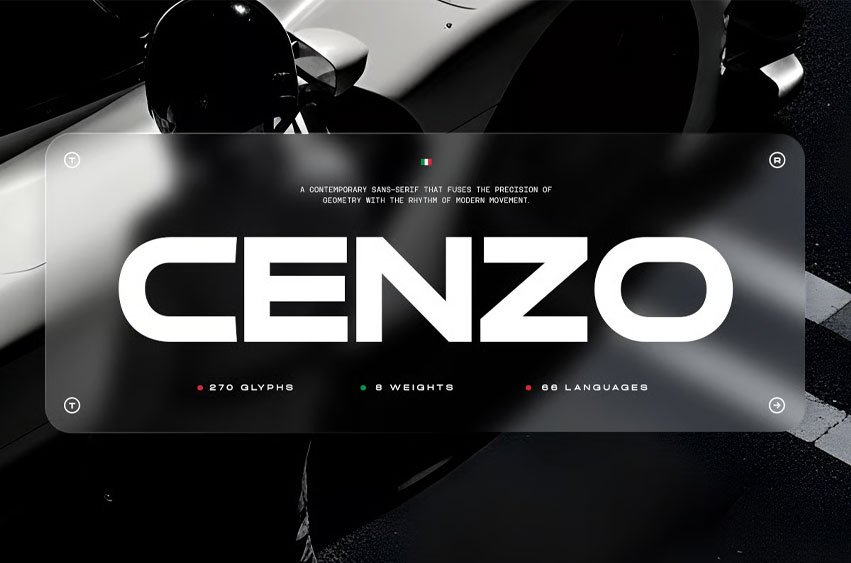
Cenzo Futuristic Font When I began working on TBJ Cenzo, I was inspired by the bold and clean geometry found in iconic modernist typefaces. Those forms conveyed a sense of strength, clarity, and futuristic appeal — but I wanted to reinterpret them in a way that feels sharper, more dynamic, and perfectly suited for today’s design landscape.
Subtle cuts and balanced proportions give TBJ Cenzo its distinctive, forward-looking personality while maintaining strong readability.
The result is TBJ Cenzo, a modern and futuristic sans-serif typeface that blends minimalism with bold visual impact. Designed for branding, display titles, interfaces, and editorial projects, it brings a sleek, contemporary edge to any layout.
TBJ Cenzo also includes
- TBJ Cenzo Light, Regular & Bold
- Numerals and Punctuation
- Accented characters
a selection of alternate characters and standard ligatures, allowing designers to explore creative variations and achieve unique typographic expressions with ease.